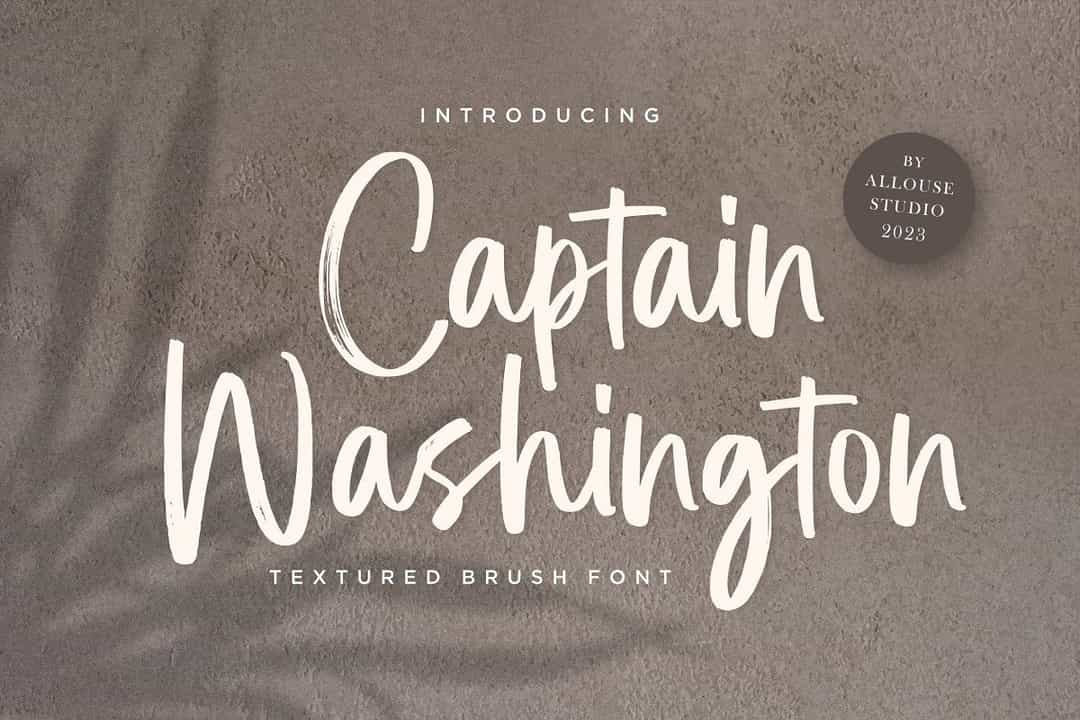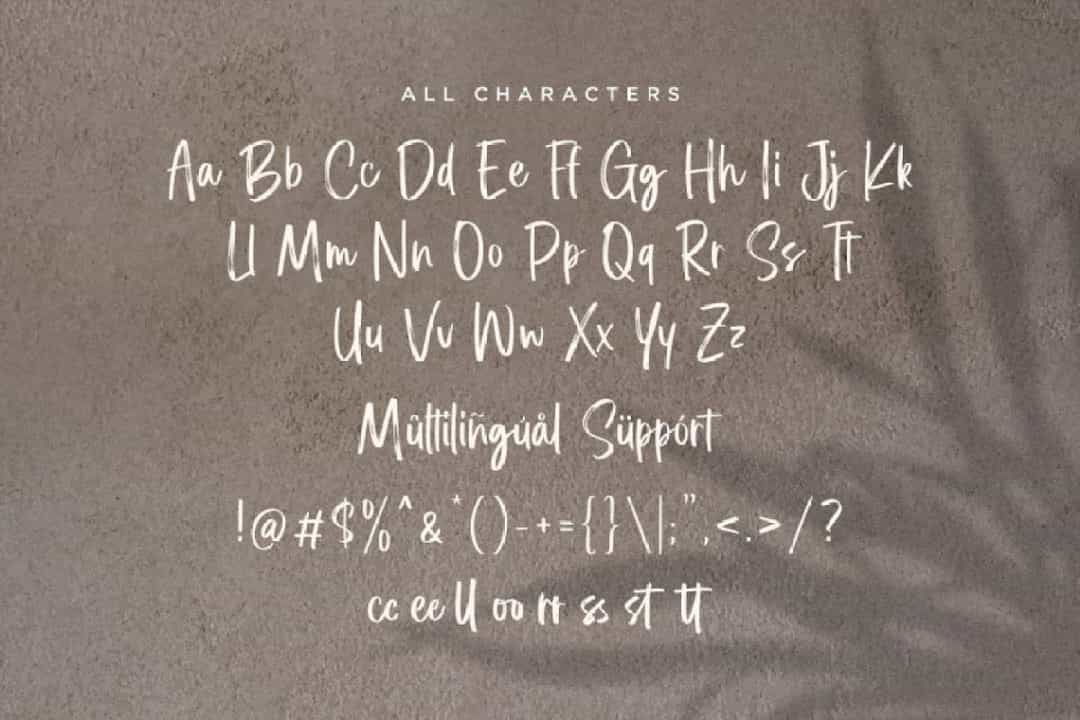
Captain Washington is an eye-catching brush Script typeface perfect for packaging products, branding projects magazine wedding invitations or social media posts or writing words on the background.